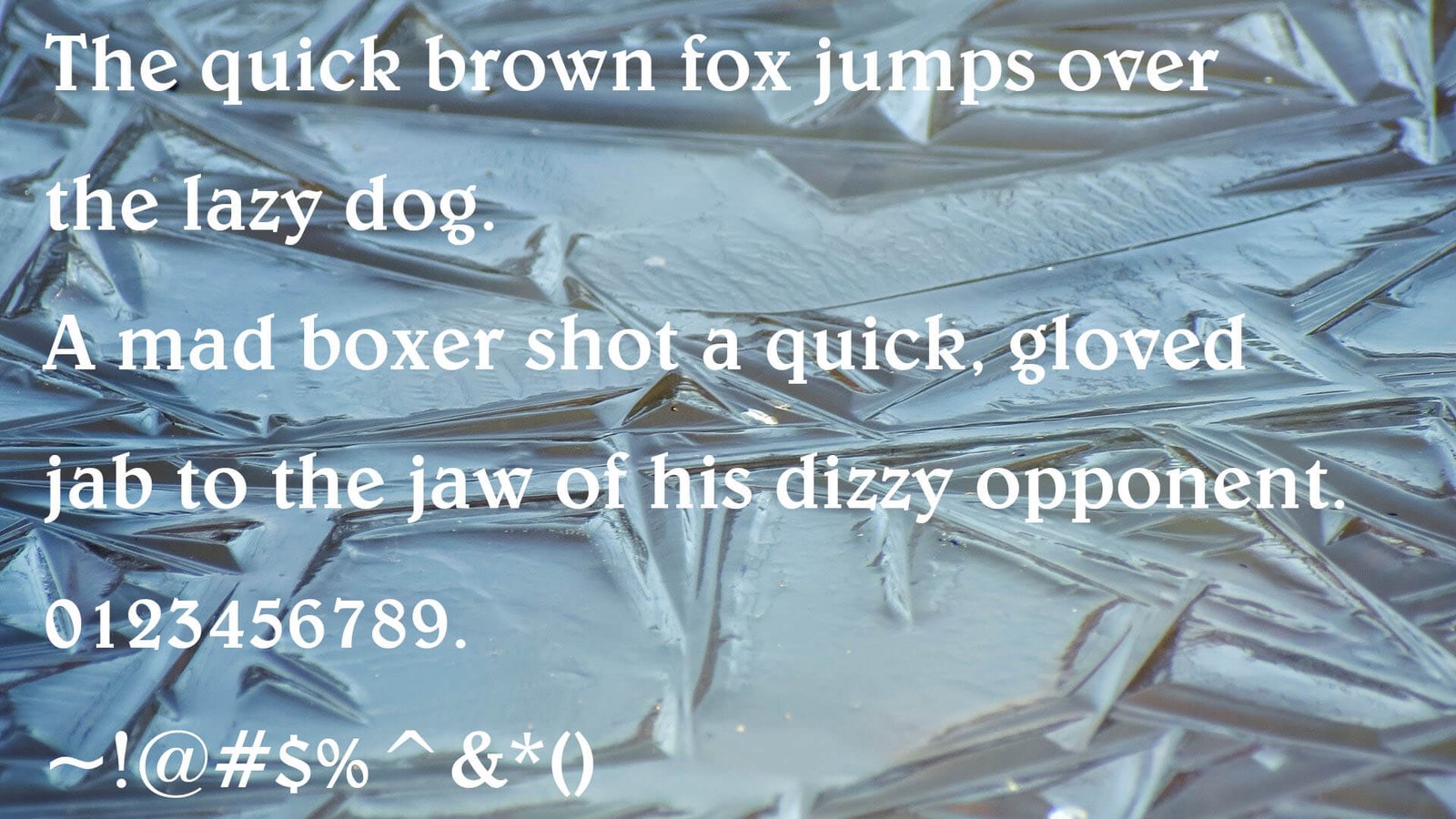
Belwe font is designed by the famous typeface designer Georg Belwe. He starts working on this font in 1907. Belwe font is a display typeface font.
It has a very attractive and unique design. It also has a traditional look. It contains 4 weights with matching italics.
Belwe Font Family
This font has a very beautiful neat and clean design. This typeface contains all types of glyphs including lowercase, uppercase, symbols, etc. This typeface has that type of texture design which can be useful for most types of designing work.